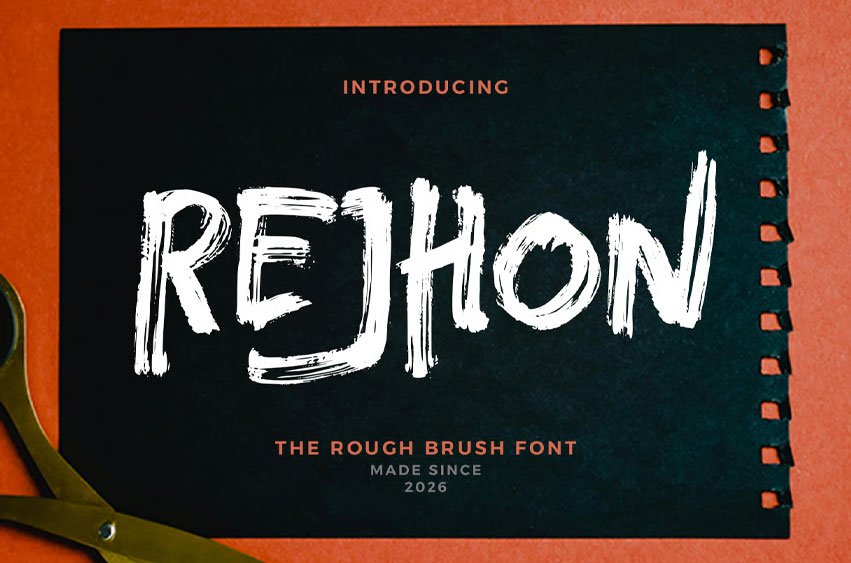
Rejhon Font is a rough brush font designed with bold strokes and rugged hand-painted texture. Inspired by authentic brush lettering, this font captures the raw and imperfect beauty of natural brush movement.
Its textured edges and expressive forms create a strong and energetic visual presence while maintaining clear readability.